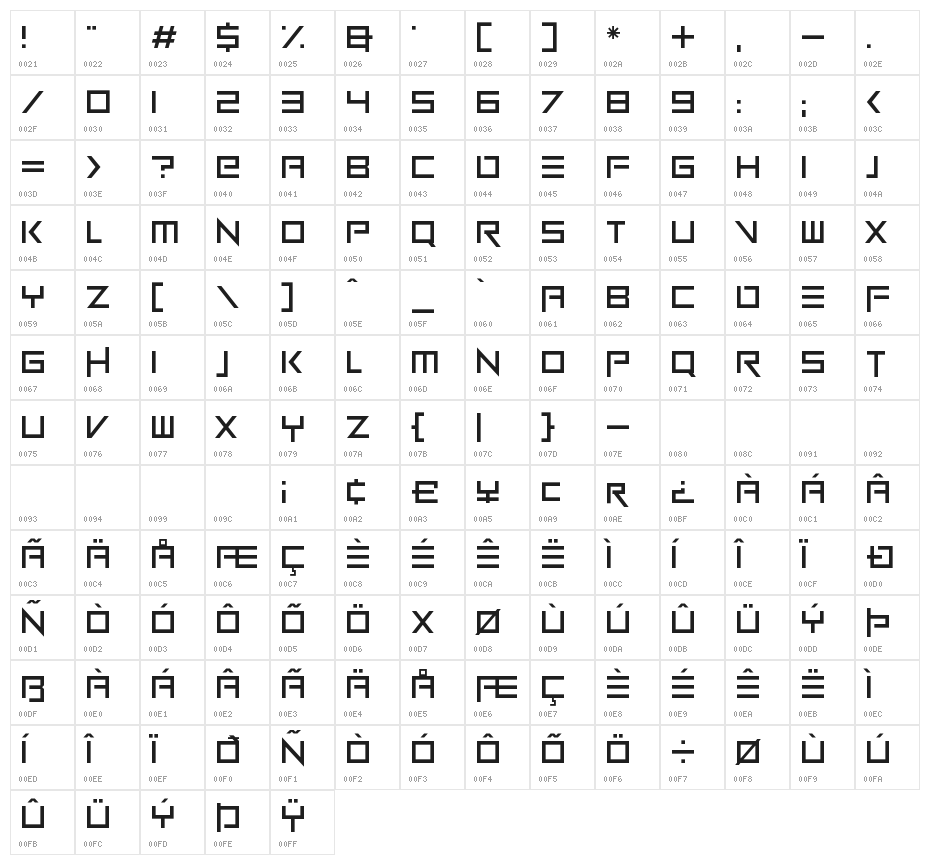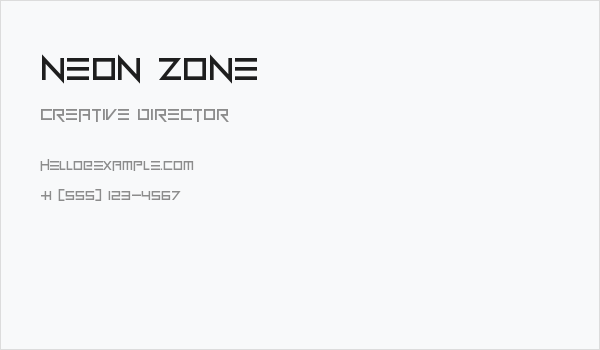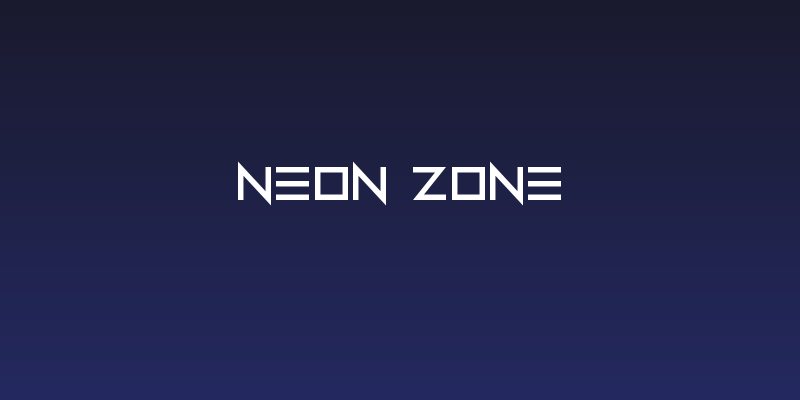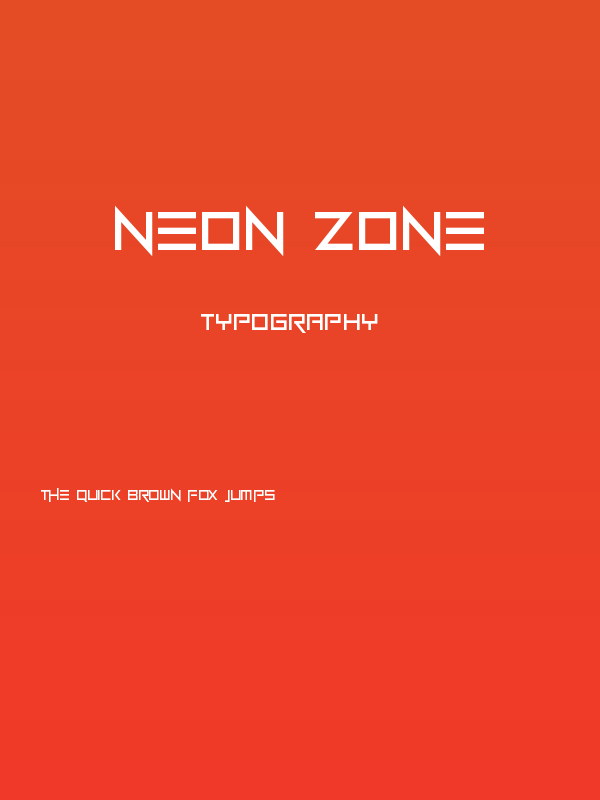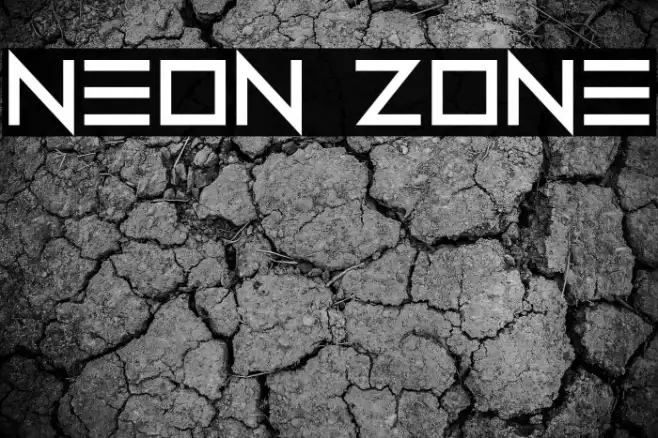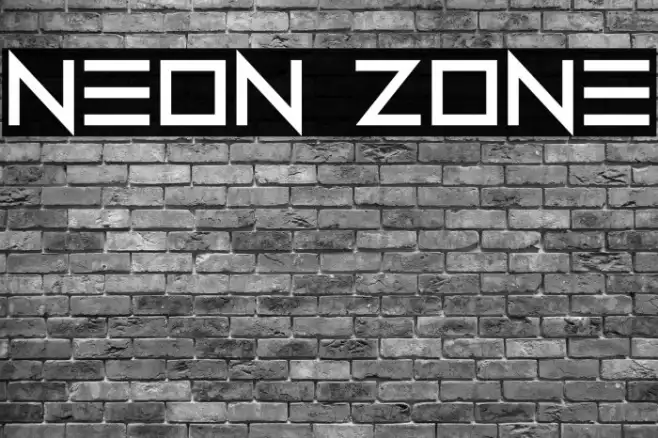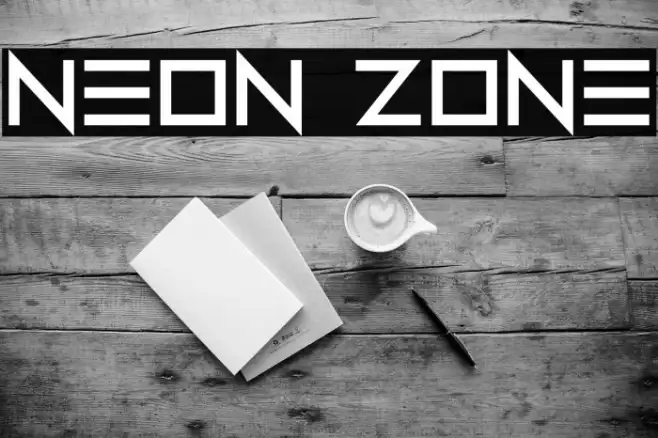
Neon Zone Font
Neon Zone Description
This font features a futuristic and geometric design, characterized by sharp angles and clean lines. The uppercase and lowercase letters maintain a consistent style, with a focus on symmetry and uniformity. The numerals are bold and align well with the overall aesthetic, making them easily readable. Special characters are designed to match the angular theme, providing a cohesive look across all glyphs. The font's modern and sleek appearance makes it suitable for digital and tech-related projects, offering a distinct and eye-catching style.
| Proposed Projects | Ideal for tech branding, digital interfaces, video game design, and sci-fi themed projects. |